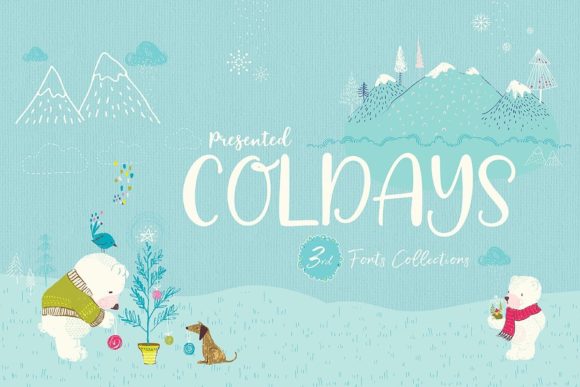
Coldays Font: The Perfect Addition to Your Design Arsenal
Are you a designer or crafter looking for a font that can add a touch of elegance and friendliness to your designs? Look no further than Coldays Font! This lovely font is perfect for a variety of design projects, from wedding invitations and thank you cards to quotes, greeting cards, logos, and business cards.
The Beauty of Coldays Font
Coldays Font is a stunning font that is sure to capture the attention of your audience. Its beautiful and delicate design makes it perfect for designs that require a customized touch. Whether you’re creating a romantic wedding invitation or a heartfelt thank you card, Coldays Font is the perfect choice.
One of the best things about Coldays Font is its versatility. It can be used for a wide range of design projects, including:
- Wedding invitations: Add a touch of romance and elegance to your wedding invitations with Coldays Font.
- Thank you cards: Express your gratitude with beautifully designed thank you cards featuring Coldays Font.
- Quotes: Create stunning quote graphics with Coldays Font that are sure to inspire and motivate.
- Greeting cards: Design beautiful greeting cards for special occasions like birthdays, anniversaries, and holidays.
- Logos: Use Coldays Font to create a custom logo for your business or brand.
- Business cards: Stand out from the crowd with beautifully designed business cards featuring Coldays Font.
Coldays Font is PUA (Private Use Area) encoded, which means that you can access all of the glyphs and swashes with ease. This makes it easy to customize your designs and add a personal touch. With PUA encoding, you can:
- Access a wide range of glyphs and swashes to add visual interest to your designs.
- Easily customize your designs to fit your brand’s style and aesthetic.
- Save time and effort by having all of the tools you need at your fingertips.
Why Choose Coldays Font?
So why should you choose Coldays Font for your design projects? Here are just a few reasons:
- Unique and elegant design: Coldays Font is a one-of-a-kind font that is sure to make your designs stand out.
- Versatility: Coldays Font can be used for a wide range of design projects, making it a great addition to your design arsenal.
- Easy to use: With PUA encoding, Coldays Font is easy to use and customize.
- High-quality: Coldays Font is a high-quality font that is designed to deliver exceptional results.
In conclusion, Coldays Font is a lovely and friendly font that is perfect for designers and crafters looking to add a touch of elegance and customization to their designs. With its beautiful design, versatility, and PUA encoding, Coldays Font is a great choice for a wide range of design projects. Whether you’re creating wedding invitations, thank you cards, quotes, or logos, Coldays Font is sure to deliver exceptional results.